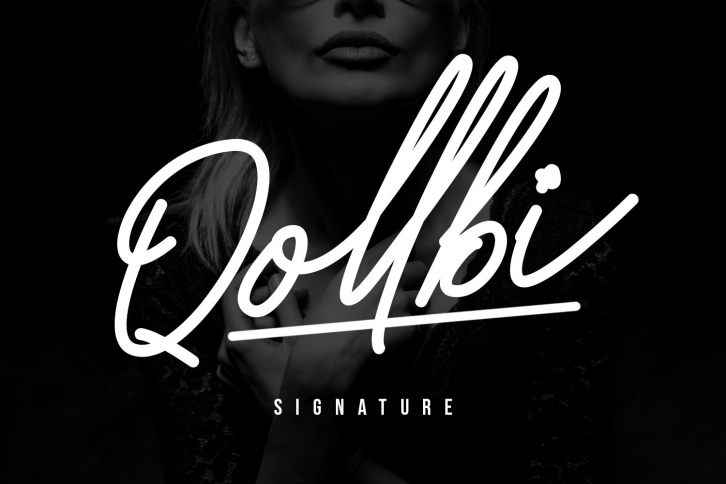
Qollbi Signature is a trendy and unique font with an authentic style. It was designed by Maulana Creative and it's a great choice for creative people who need such a font. It was released on April 9, 2020 and the file size is 12.5 MB. Qollbi Signature will add an organic vibe to any design idea!